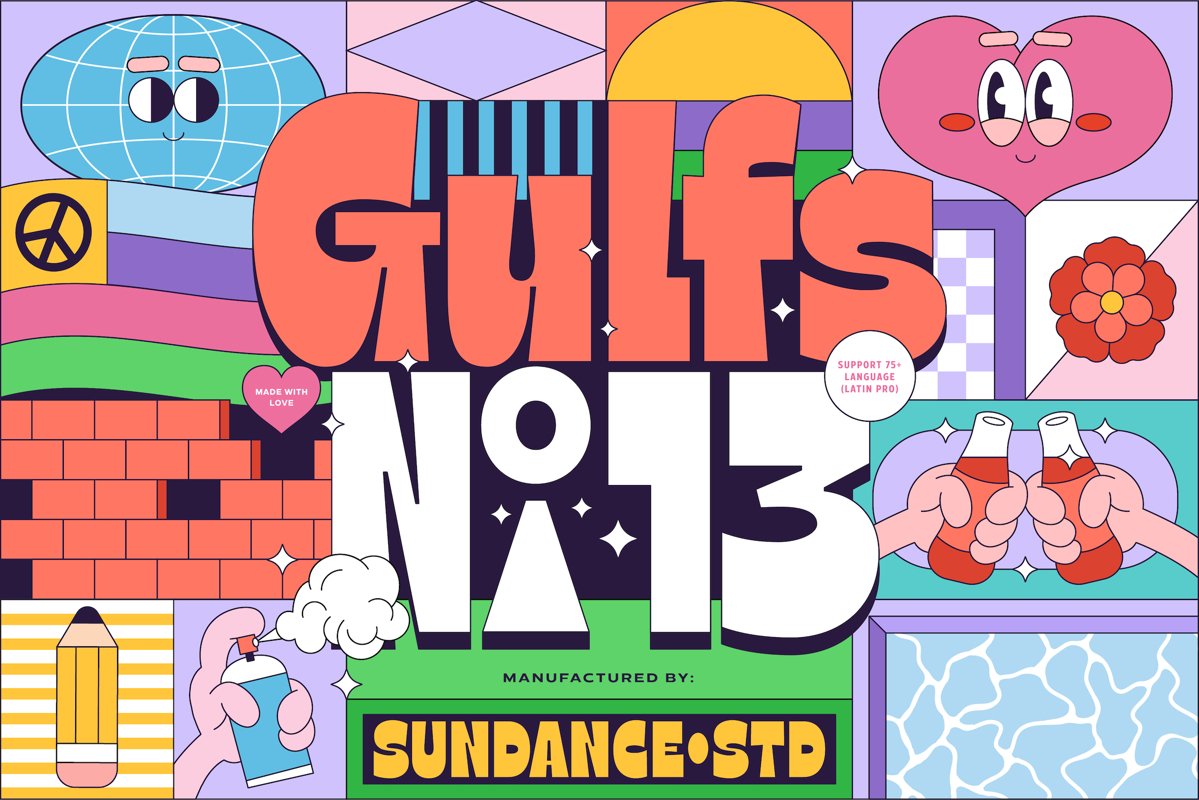
50% Off Introductory - Gulfs Display Inspired by the 90's playful cartoon & comic books. This playful font comes in six widths; condensed, semi condensed, normal, semi expanded, expanded and extra expanded. This font can be used for modern and vintage designs, also can be easily paired with some graphic elements (Illustration, Photography) this font perfect for, Logotype, Branding, Title, and Packaging.